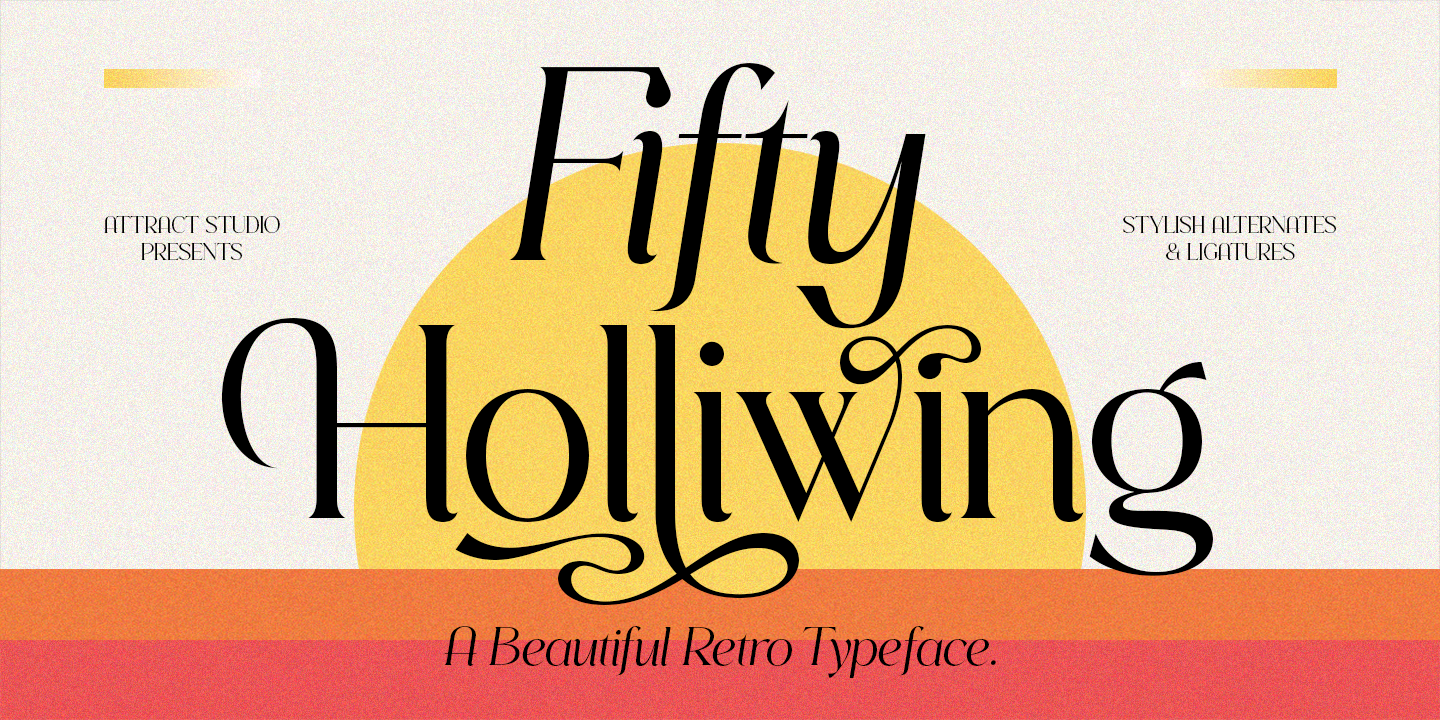
Fifty Holliwing Font is perfect for retro movie posters, vintage entertainment branding, classic Hollywood memorabilia, old-school diner signage, 1950s themed events, nostalgic advertising campaigns, vintage car show materials, classic cinema promotions, retro fashion labels, and mid-century modern design projects where authentic period typography captures the glamour and sophistication of Hollywood's golden age.
What makes Fifty Holliwing Font exciting is its authentic recreation of classic Hollywood lettering that embodies the sophisticated glamour and timeless elegance of cinema's golden era through meticulously crafted vintage letterforms. This font features distinctive character shapes with Art Deco influences, elegant curves, and refined proportions that evoke the luxury and star-studded atmosphere of 1950s Hollywood. The nostalgic styling and cinematic personality make it ideal for applications requiring period authenticity, vintage charm, and the sophisticated appeal of classic entertainment culture.
Fifty Holliwing Font family includes Regular, Bold, and Script variations, each capturing different aspects of vintage Hollywood typography while maintaining the font's characteristic golden age elegance. The family also features decorative elements, ornamental flourishes, and period-appropriate symbols that enhance the authentic vintage aesthetic. Each variant preserves the font's classic Hollywood character while providing flexibility for diverse retro design applications and nostalgic branding projects.
The Fifty Holliwing Font Free Download offers designers and entertainment professionals access to typography that authentically represents Hollywood's most glamorous period. This font's vintage approach makes it exceptional for period films, retro branding, and nostalgic communications where historical accuracy and cinematic appeal are paramount. Its versatility extends to contemporary applications requiring vintage Hollywood aesthetics, themed entertainment venues, and modern projects celebrating classic American culture.
Fifty Holliwing Font supports comprehensive character coverage including period-appropriate numerals, classic punctuation, and vintage symbols necessary for authentic 1950s design reproduction. The font's carefully calibrated metrics ensure proper spacing for vintage layouts while maintaining the elegant character that defines classic Hollywood typography. Its scalability preserves the sophisticated details from small vintage labels to large marquee sign applications.
The font's star-quality presence makes it particularly effective for entertainment industry projects, vintage celebrations, and nostalgic communications where classic Hollywood glamour and period authenticity are essential for creating memorable experiences. Whether designing retro film festivals, vintage brand revivals, or classic entertainment venues, Fifty Holliwing Font delivers authentic golden age typography that captures the timeless appeal of Hollywood's most sophisticated era effectively.